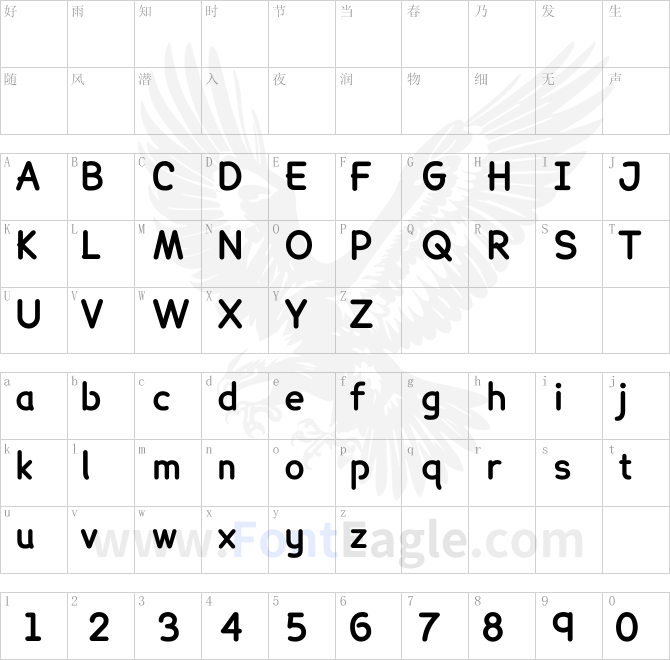
- Font name:Lexia Readable
- Font Full Name:Lexia Readable Bold
- Font Version:Lexia Readable Bold (v 4.1) by Keith Bates • © 2013 www.k-type.com
- Font Copyright:Lexia Readable Bold (v 4.1) by Keith Bates • © K-Type 2004, 2013 • www.k-type.com • keith@k-type.com • The Lexia Readable family is designed for maximum legibility, a grown-up’s Comic Sans that’s clear and accessible.